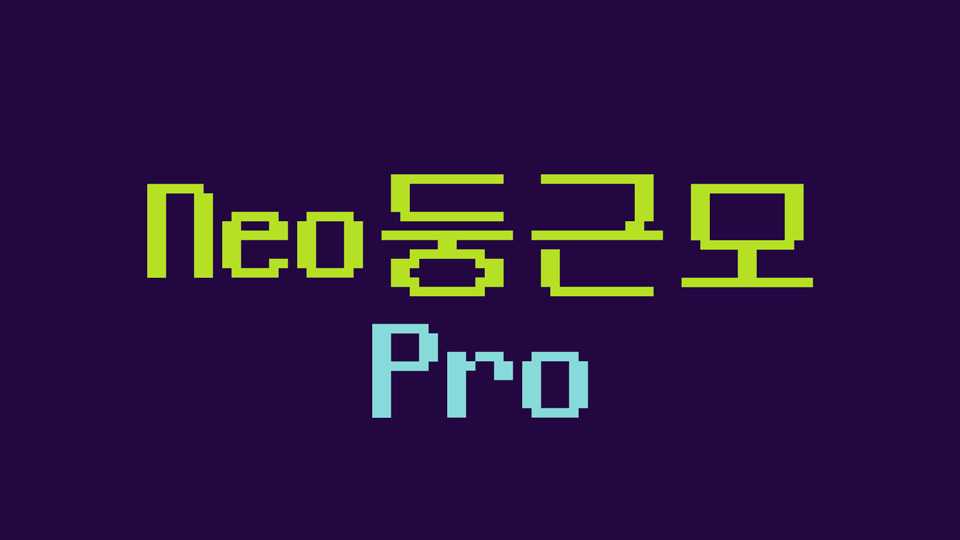
Download NeoDunggeunmo Pro, a modern proportional font based on an old-but-good Korean bitmap typeface. NeoDunggeunmo Pro can be used in various places outside terminal emulators.
Designer: Eunbin Jeong